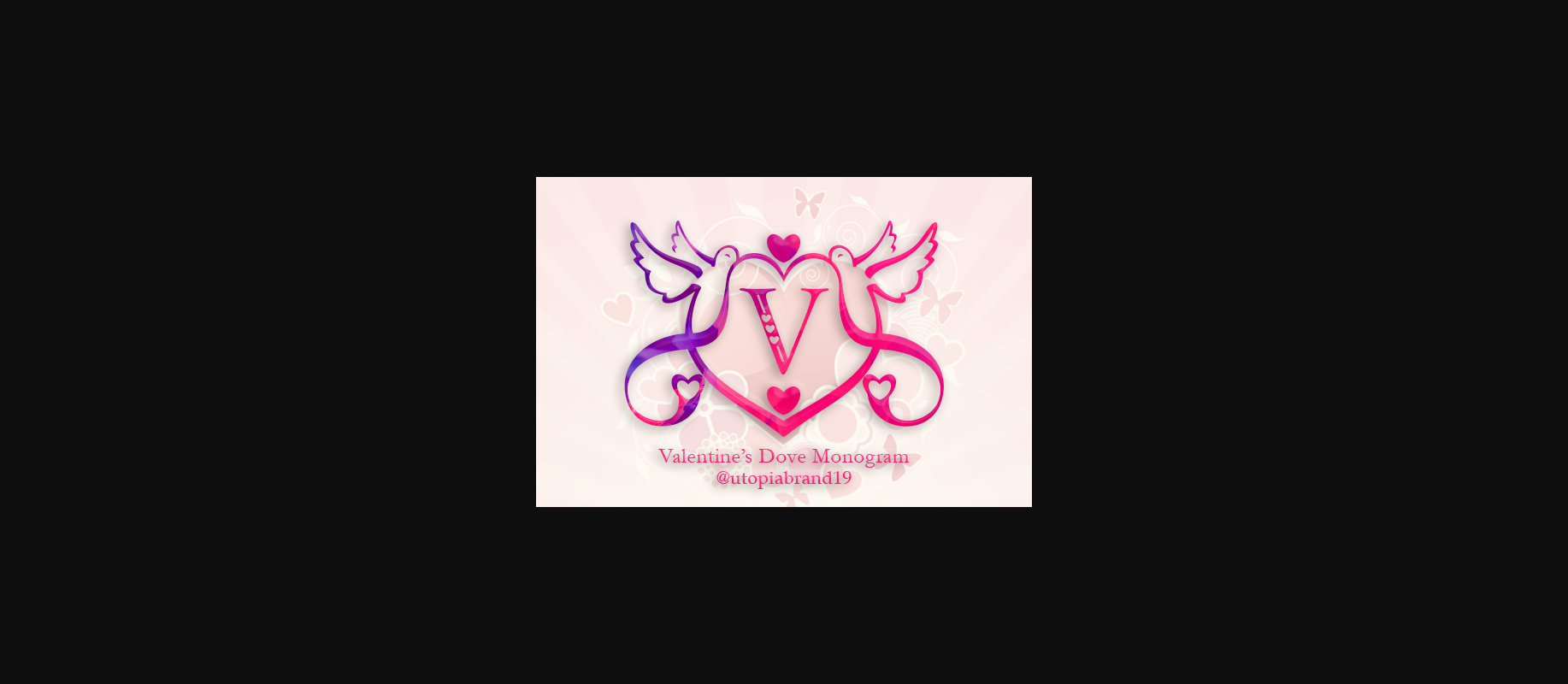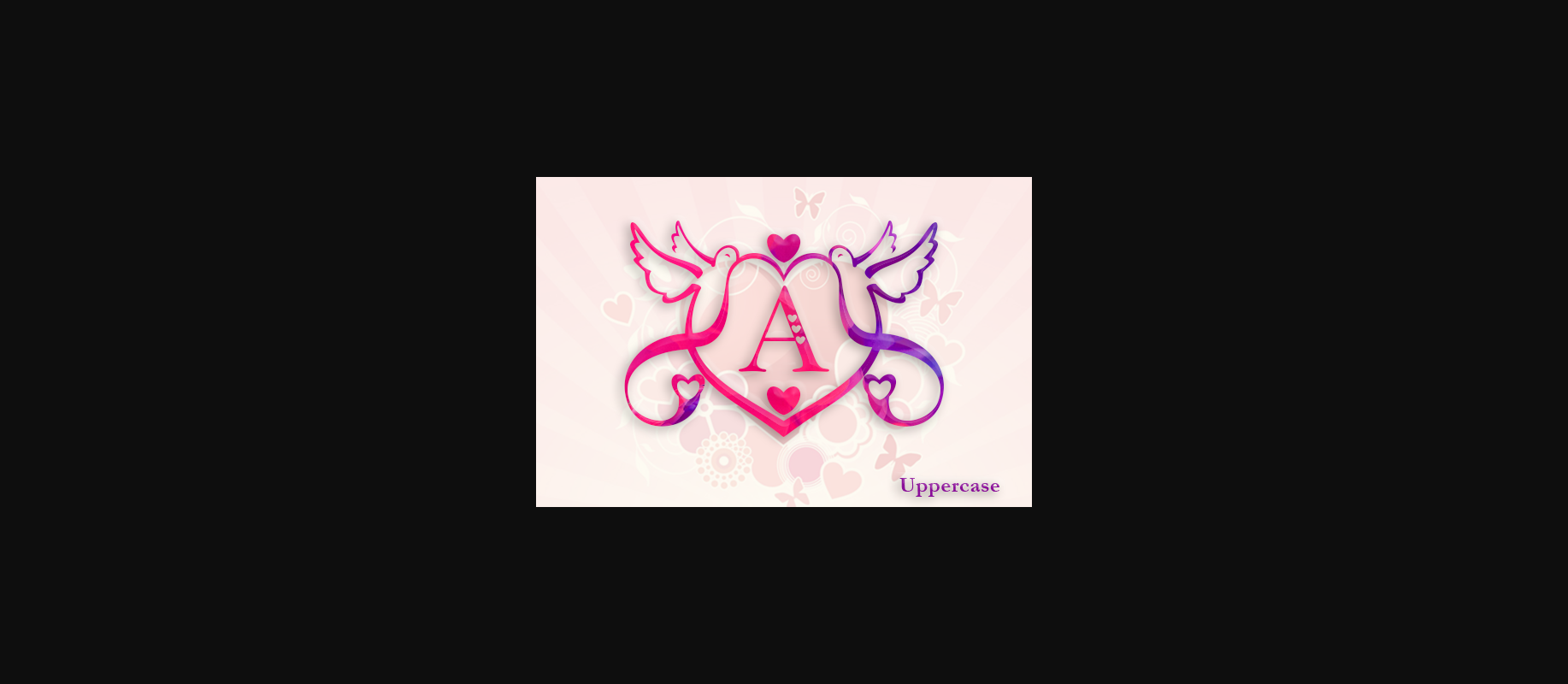
About Valentines Dove Monogram Font
Valentines Dove Monogram is an elegant decorative font, featuring lovely ornaments. Fall in love with its authentic feel and use it to create gorgeous wedding invitations, beautiful stationary art, eye-catching social media posts, and cute greeting cards. This font is PUA encoded, which means you can access all of the glyphs and swashes with ease!